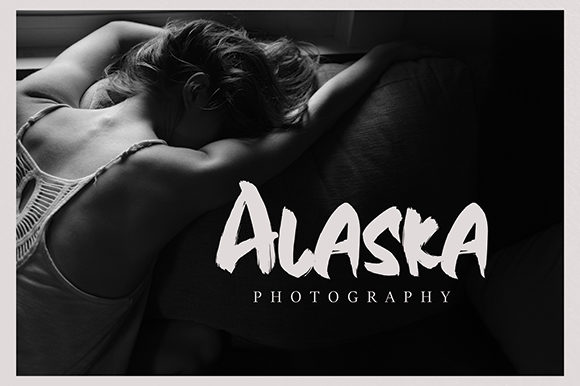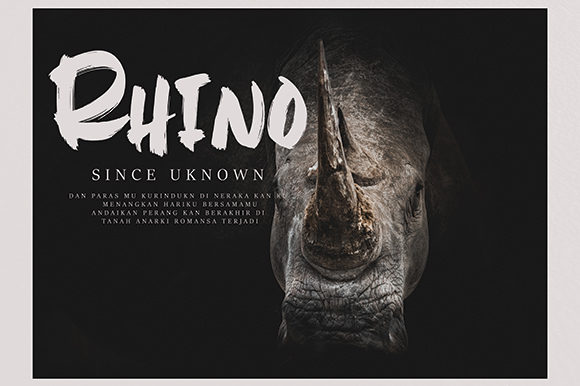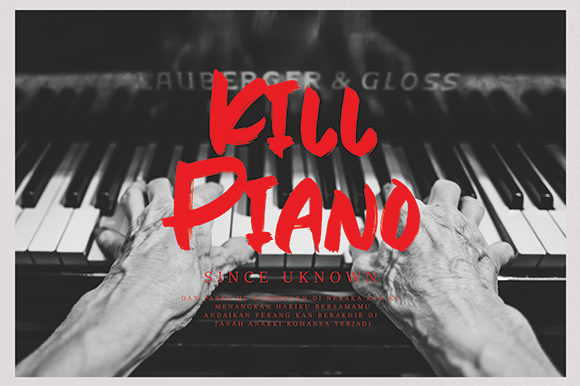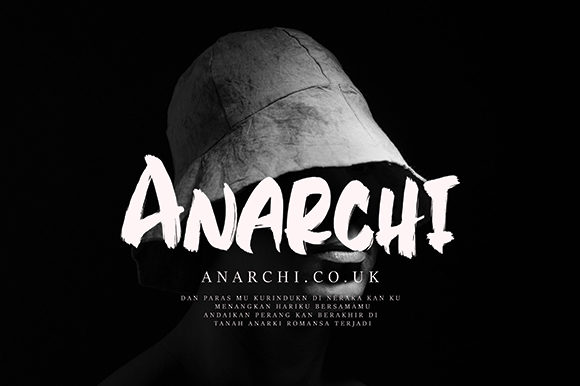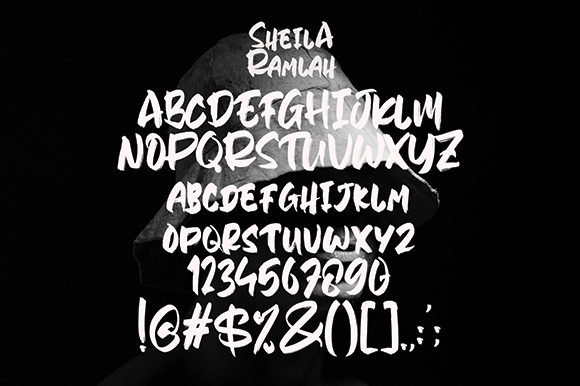
Introduction to Sheila Ramlah Font
As designers, we’ve all been there – staring at a blank page, trying to bring our creative vision to life. The perfect font can make all the difference, elevating our ideas from mere concepts to stunning realities. And that’s exactly where the Sheila Ramlah Font comes in – a bold and chunky lettered display font that’s guaranteed to make your creative project stand out.
Key Features of Sheila Ramlah Font
- Unique and elegant design, perfect for creative projects that require a touch of sophistication.
- Includes a wide range of glyphs and characters, making it an ideal font for various languages and creative projects.
Honest Review: Sheila Ramlah Font
I recently stumbled upon the Sheila Ramlah Font, and I must say it’s a great addition to any designer’s toolbox. The high-quality font is perfect for any creative project that requires a unique and elegant touch. Plus, it’s available for free download, making it an attractive option for those on a budget.
One of the standout features of this font is its ability to be used with a transparent background, allowing for seamless integration with any design element. This flexibility makes it an ideal resource for designers who need to create visually appealing and cohesive designs.
Here are some of the things that work well with the Sheila Ramlah Font:
- Only available in a limited range of font styles
- May not be suitable for projects that require a bold or playful font
Overall, I’m impressed with the Sheila Ramlah Font and would definitely recommend it to fellow designers. It’s a great design resource that can help take your projects to the next level.
Getting the Most Out of Sheila Ramlah Font
To get the most out of the Sheila Ramlah Font, experiment with different font sizes, colors, and styles. You can also combine the font with other design elements to create a unique and eye-catching design. Consider using a transparent background to give your design a modern and sleek look.
The Sheila Ramlah Font is ideal for a variety of creative projects, including logos, brochures, posters, and social media graphics. Its high-quality design and transparent background make it a versatile and practical design resource for any project.